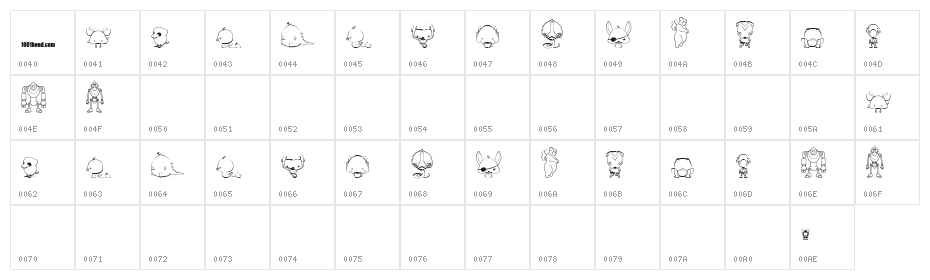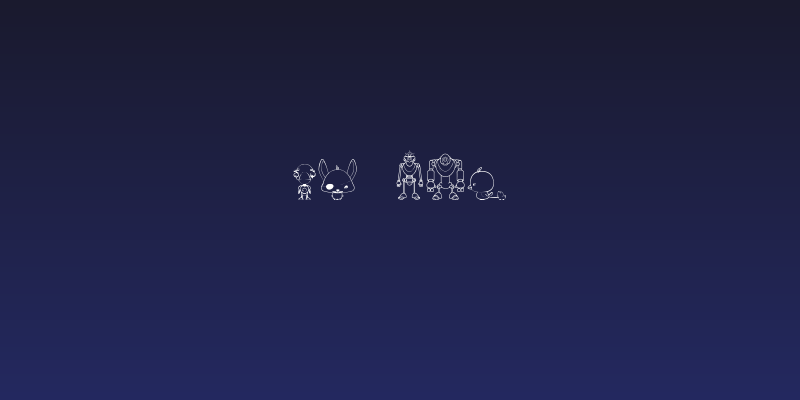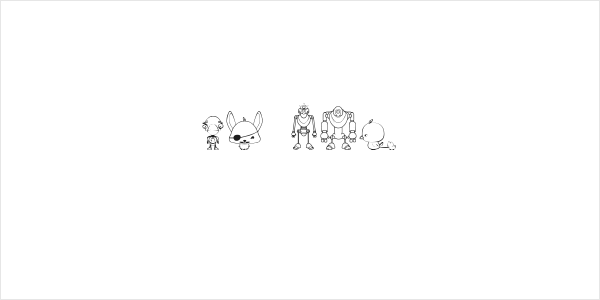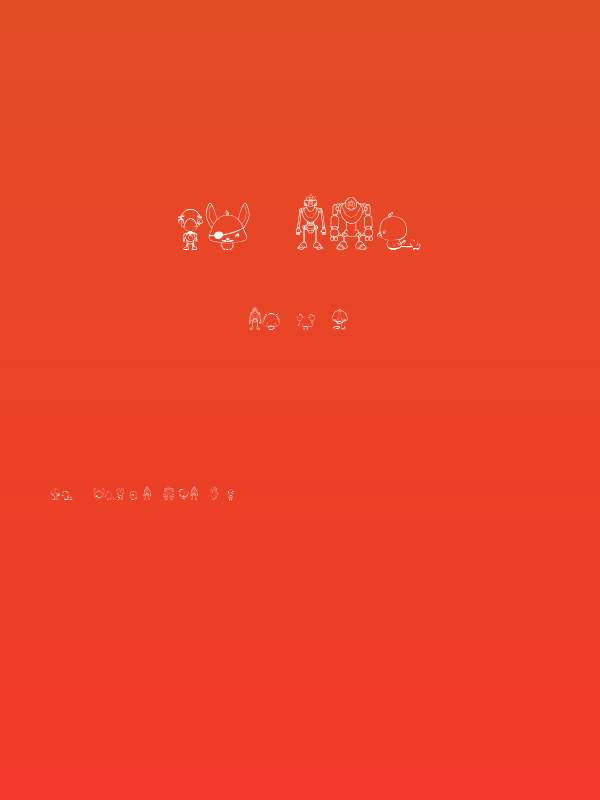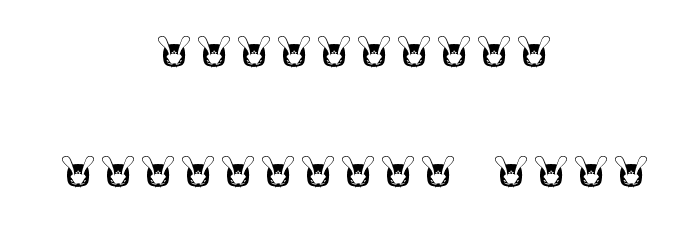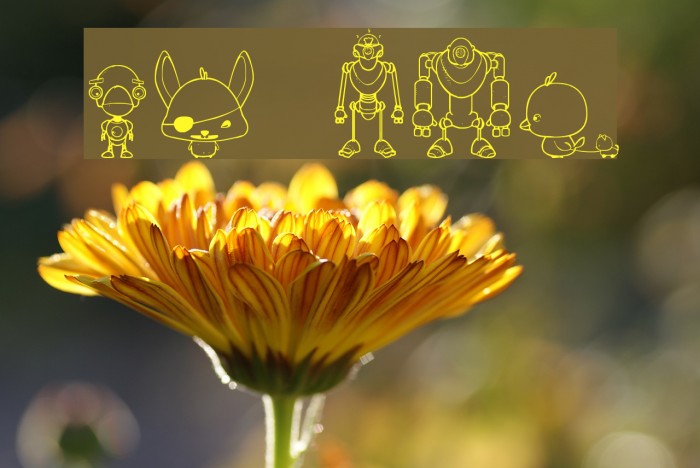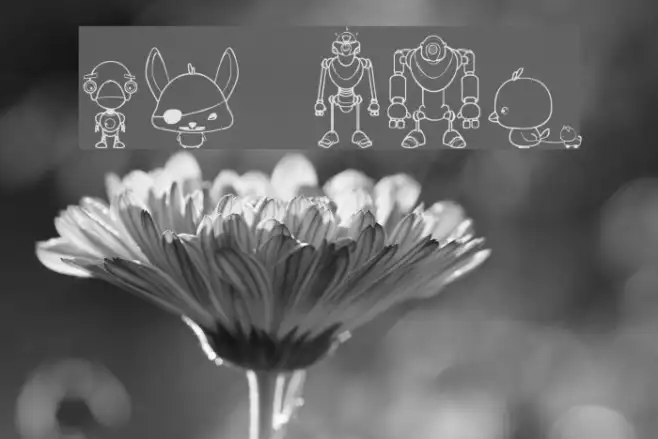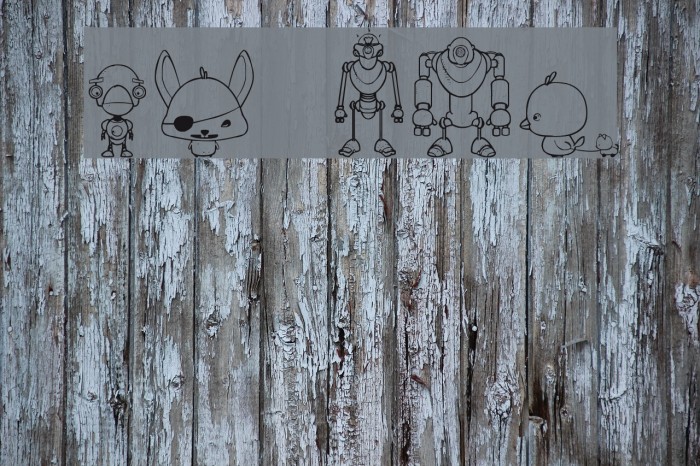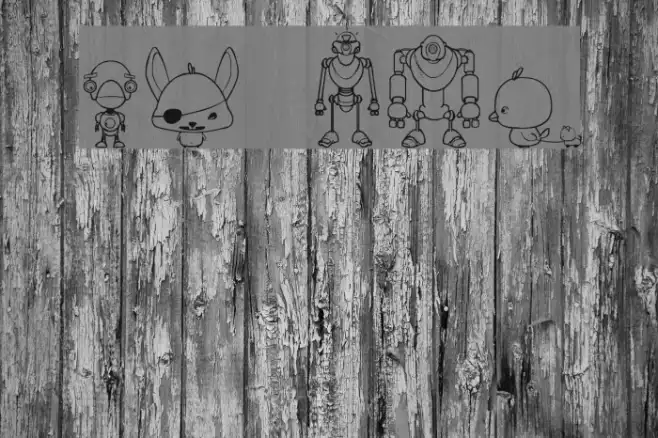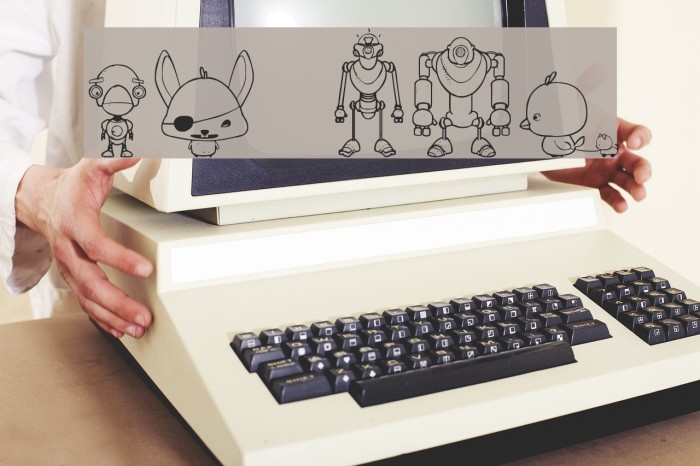
MixOne Font
MixOne Description
This is a whimsical and playful decorative font featuring a series of unique and imaginative character illustrations. Each character is distinct, with a cartoonish and endearing style that adds a sense of fun and creativity. The font includes a variety of quirky figures, each with its own personality, making it ideal for projects that require a touch of humor and charm. The characters are well-drawn with clean lines, and the overall design is consistent throughout, providing a cohesive look. This font is not suitable for traditional text but excels in creating visual interest and storytelling through its delightful character set.
| Overall Style | Whimsical |
| Use Case | Logos, Illustrations, Decorative elements |